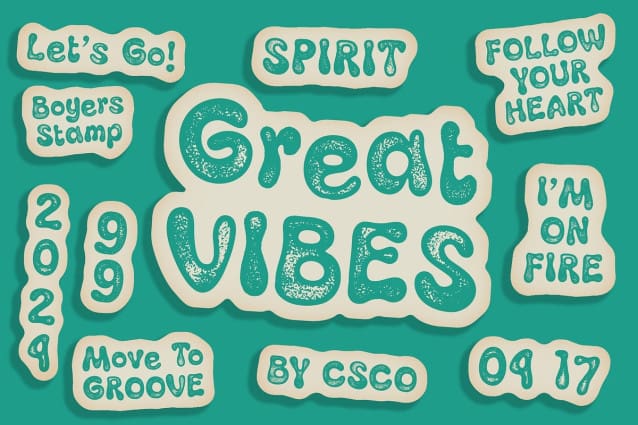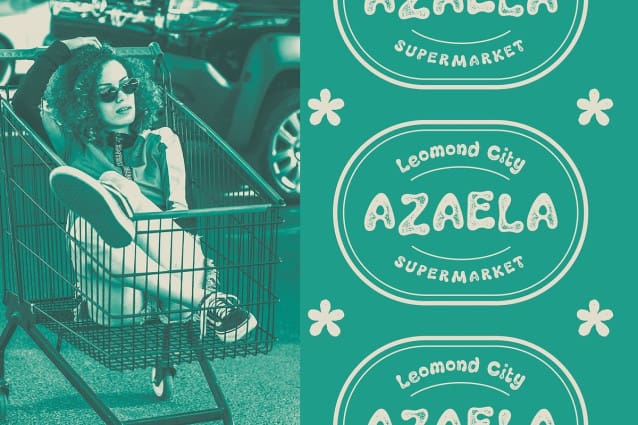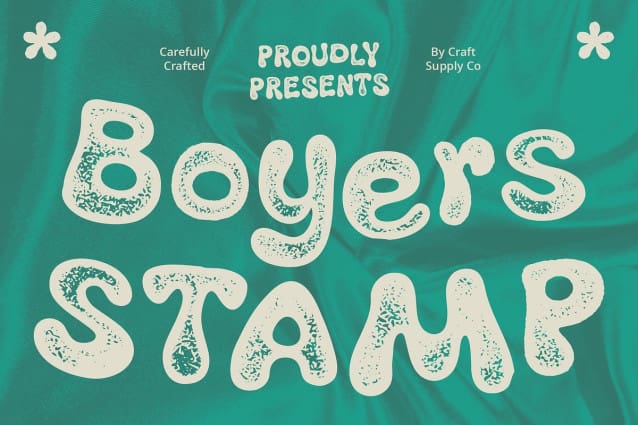
Boyers Stamp Font
Boyers Stamp Font: Playful Bubble Display Typeface. Inspired by Floating Bubbles Boyers Stamp draws inspiration from the whimsical shapes of balloons and water bubbles, resulting in fluid-like forms that captivate the eye.
Bubble-Inspired Fluidity With its bubble-inspired design, This font exudes a sense of fluidity and motion, evoking a playful and dynamic vibe perfect for attention-grabbing displays.
Stamp Effect for Added Impact Enhanced with a stamp effect, each character in This font carries a bold and impactful presence, making it an ideal choice for a wide range of display applications.
Versatile Display Solution From branding and advertising to packaging and signage, This font offers versatility in display typography, ensuring that your message stands out with its distinctive and engaging appearance.
Fun and Dynamic Typeface This font is more than just a font; it’s a playful and dynamic display typeface that brings a sense of joy and energy to any design project. With its bubble-inspired forms and stamp effect, This font is the perfect choice for creating eye-catching displays that leave a lasting impression.